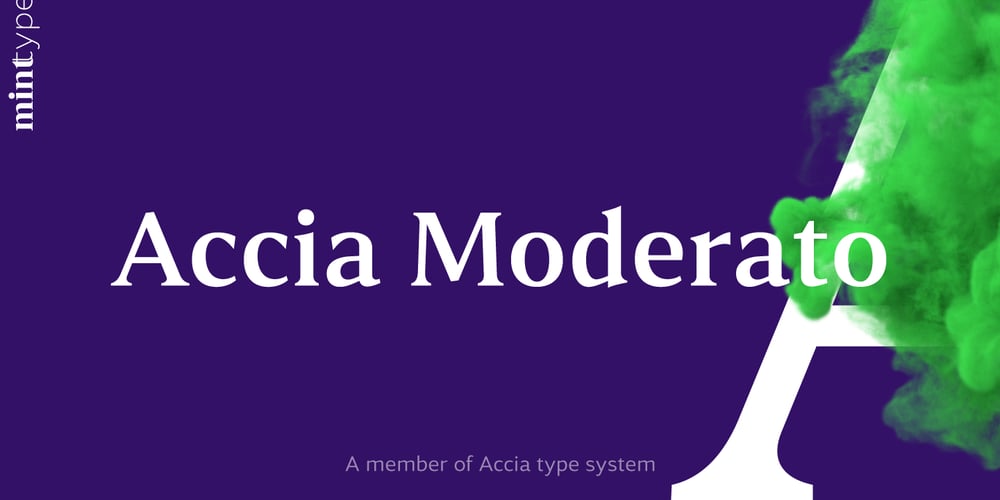
Accia Moderato
Accia Moderato font
Accia Moderato Font Family was designed by Andriy Konstantynov and published by Mint Type. Accia Moderato contains 16 styles and family package options. Accia Moderato is a contemporary serif typeface with moderate contrast and large x-height. It will become a great choice for primary body copy.The font family contains 8 weights from Thin to Extra Bold, with matching true italics. It supports extensive language support including Cyrillic, as well as numerous OpenType features such as small caps, ligatures, several sets of figures, case-sensitive punctuation, ordinals.Accia Moderato is a member of Accia Type System. It encompasses five typefaces ranging from sans-serif to expressive serif, giving you the possibility to create sophisticated cohesive designs. Accia Type system consists of Accia Sans, Accia Flare, Accia Piano, Accia Moderato, and Accia Forte.